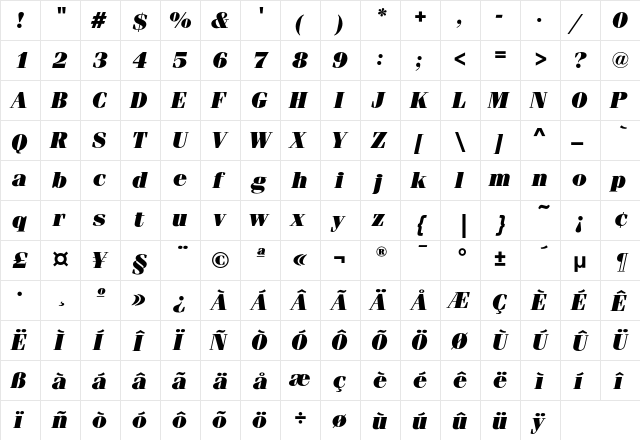
FeniceEF-UltraItalic Regular
Design Context for FeniceEF-UltraItalic Typeface
FeniceEF-UltraItalic takes a measured approach to typography — its balanced proportions and neutral character make it a reliable workhorse for both digital and print work. The slanted form adds forward momentum and visual energy.
Pro Tip: Try FeniceEF-UltraItalic for annotation and caption copy alongside an upright companion — the contrast in angle creates a dynamic but ordered typographic system.